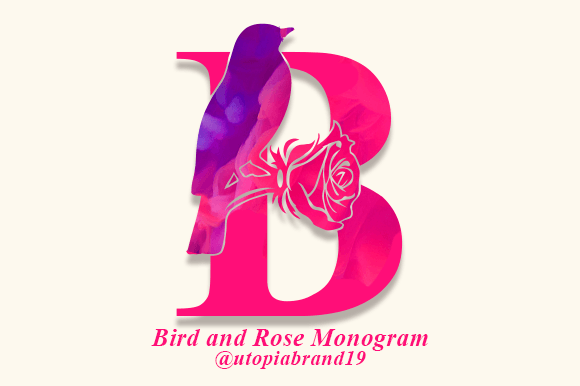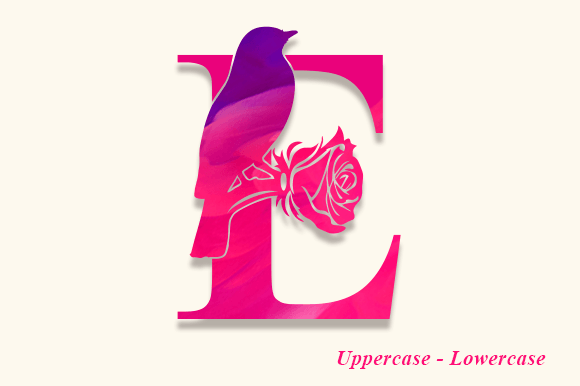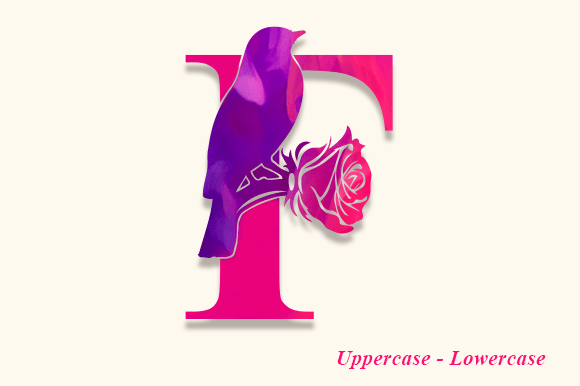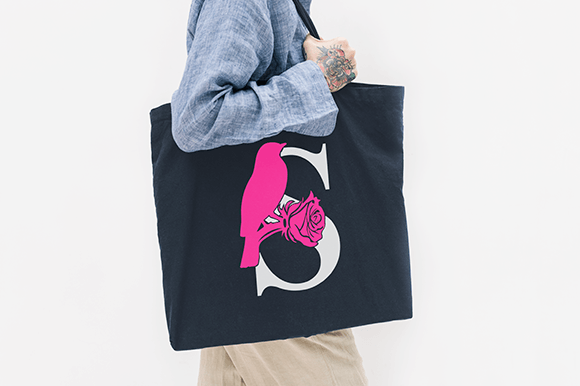
Bird and Rose Monogram Font
About the Bird and Rose Monogram Font
From logos to headlines, the Bird and Rose Monogram Font is the perfect choice for making a lasting impression. Bird and Rose Monogram is an elegant decorative font, featuring lovely ornaments. Fall in love with its authentic feel and use it to create gorgeous wedding invitations, beautiful stationary art, eye-catching social media posts, and cute greeting cards.
Bird and Rose Monogram Font Usage Examples